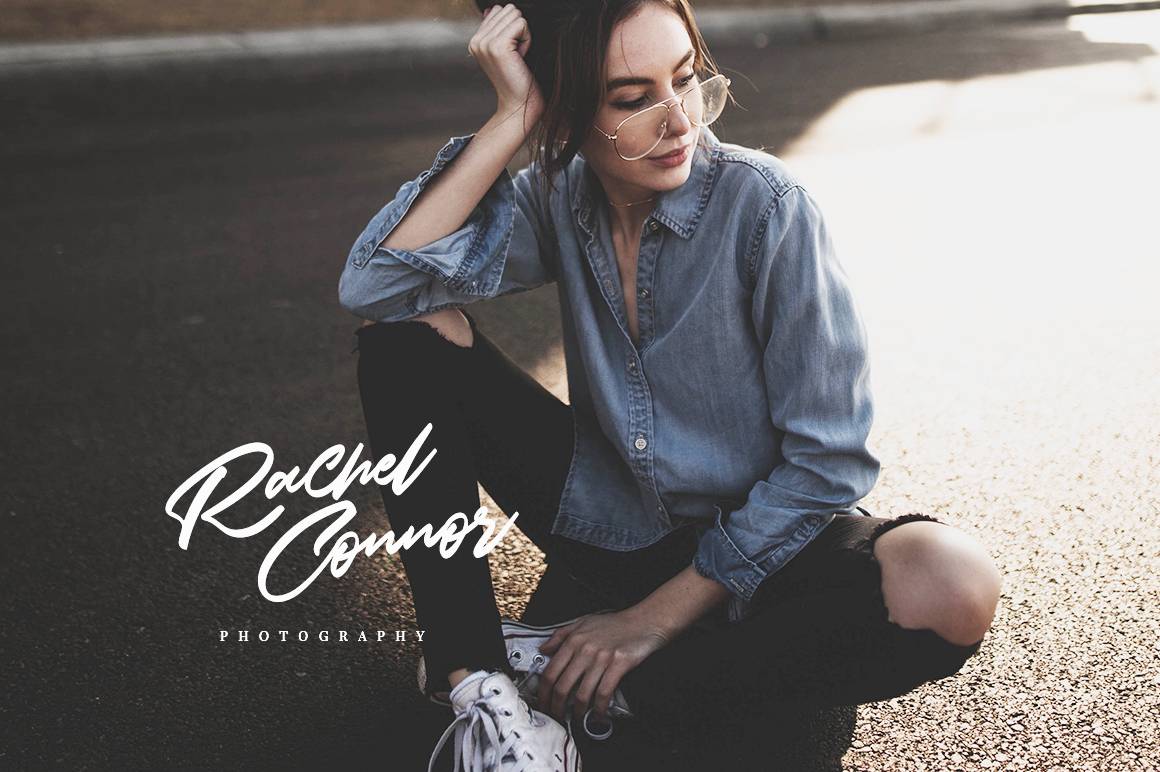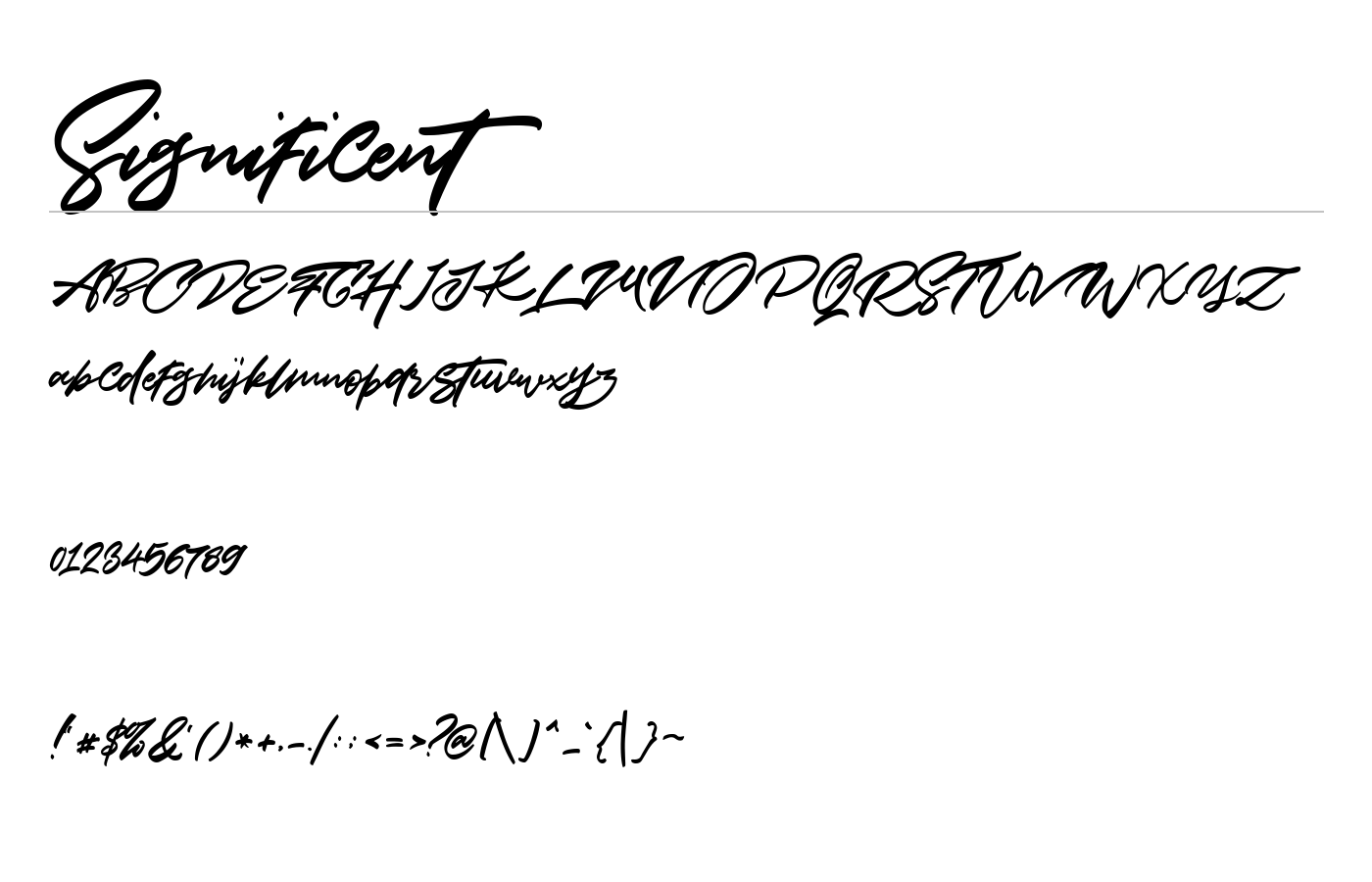
Significent Wild Brush is a lively, cursive brush script font with a spontaneous, hand-painted feel. It features fluid, natural strokes and moderate contrast, giving it an energetic and artistic personality, perfect for creative branding, logos, and expressive headlines. This font works well when you want to convey a sense of individuality and dynamic style.
Significent Wild Brush Font
About Significent Wild Brush Font
| Font family | Significent Wild Brush Font |
| Designer | Hendra Maulia |